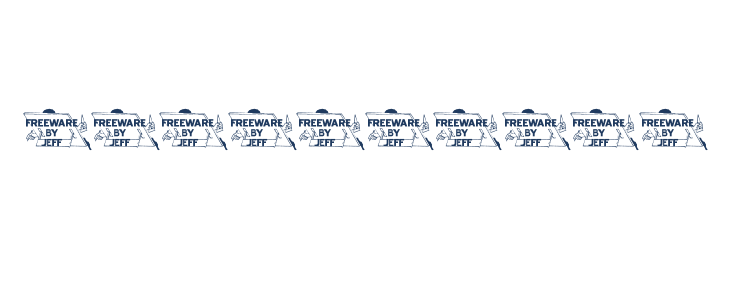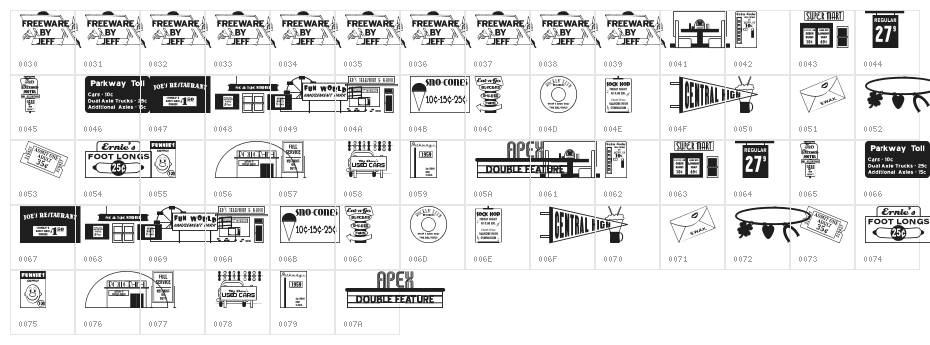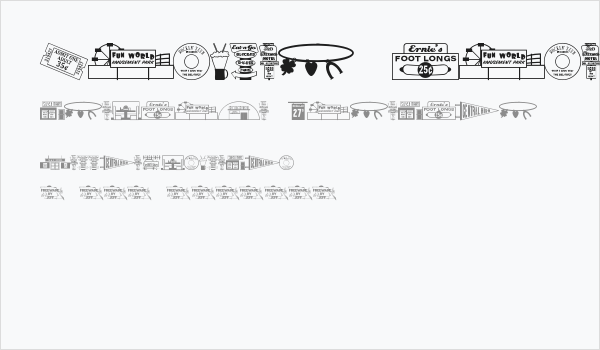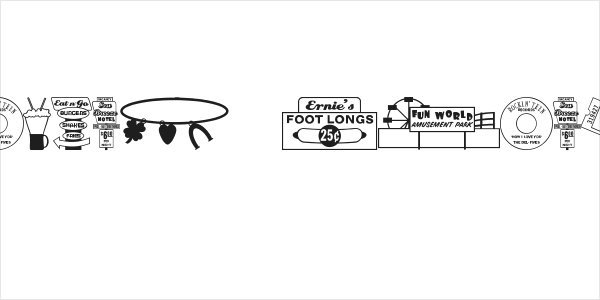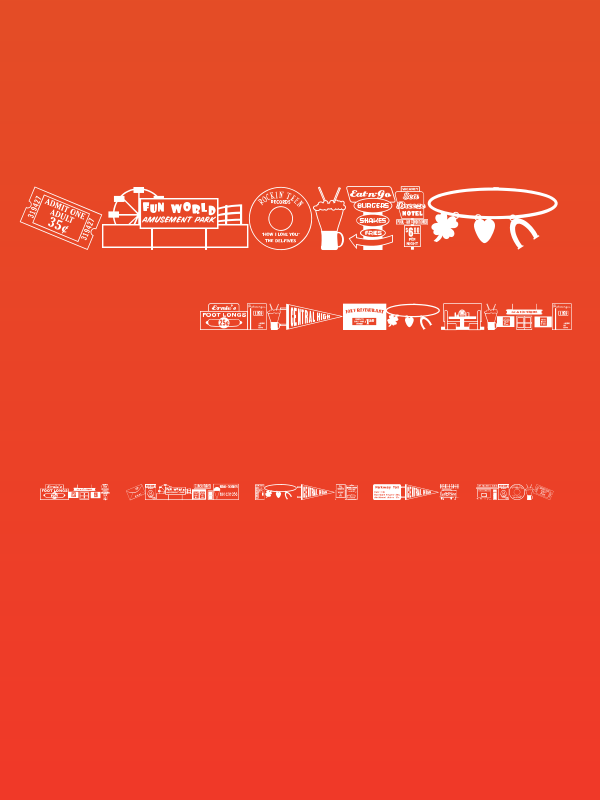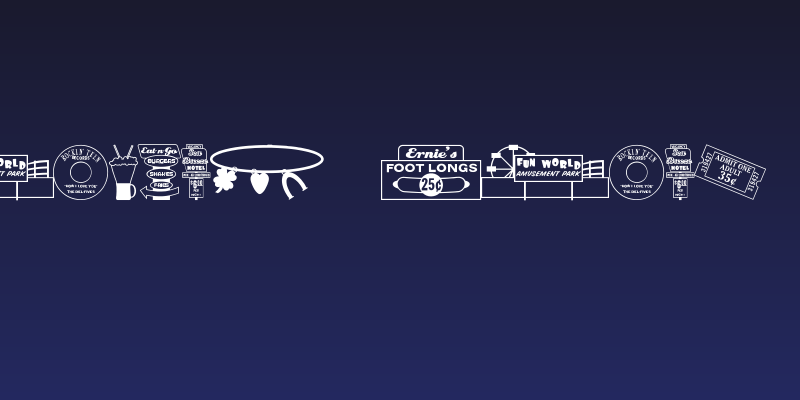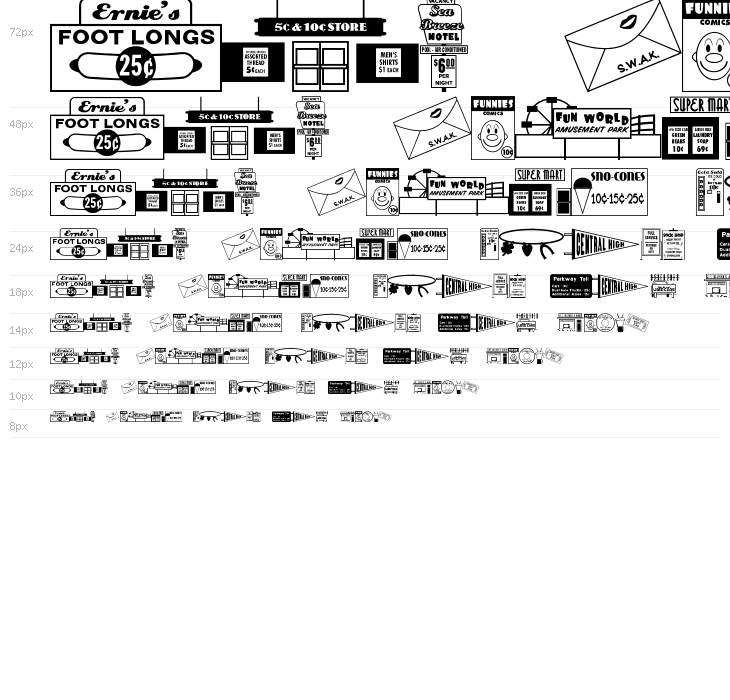
Simpler Times JL Font
Simpler Times JL Description
This is not a traditional font but rather a collection of vintage-style illustrations and signage. The graphics include retro diner signs, old-fashioned advertisements, and classic Americana motifs. Each element is designed to evoke a sense of nostalgia, reminiscent of mid-20th century roadside attractions and businesses. The style is bold and graphic, with a mix of text and imagery that captures the essence of a bygone era. The illustrations are detailed, with a focus on capturing the authentic look and feel of vintage signage.
| Overall Style | Vintage |
| Use Case | Logos, Posters, Themed Decor |
| Proposed Projects | Ideal for retro-themed design projects, vintage posters, nostalgic branding, or themed event decorations. |